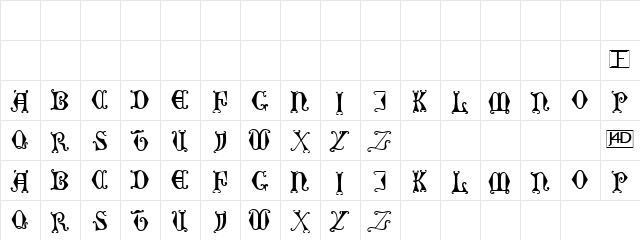
Curled Serif Normal
Design Context for Curled Serif Typeface
Curled Serif carries the refined structure of traditional serif typography, with bracketed terminals and considered proportions that communicate credibility and craft.